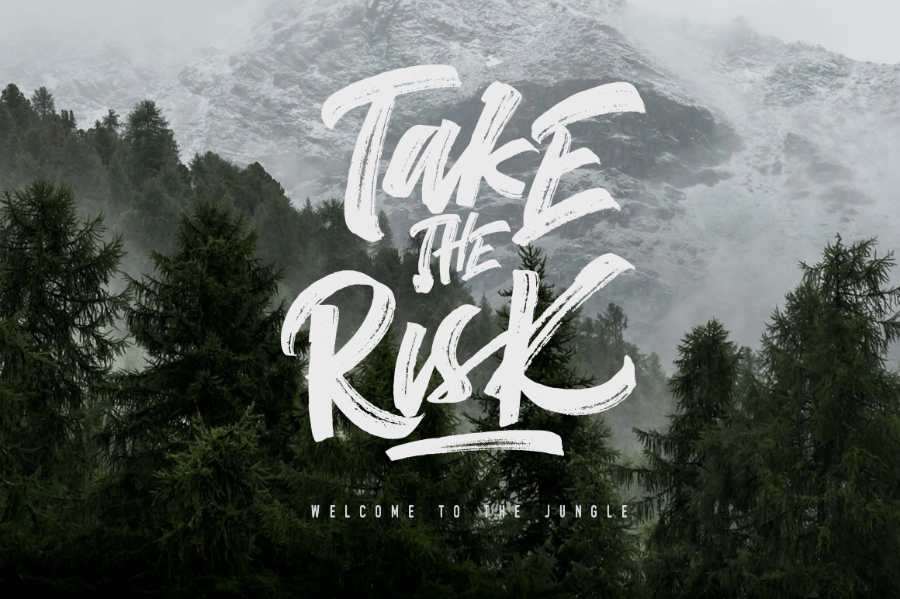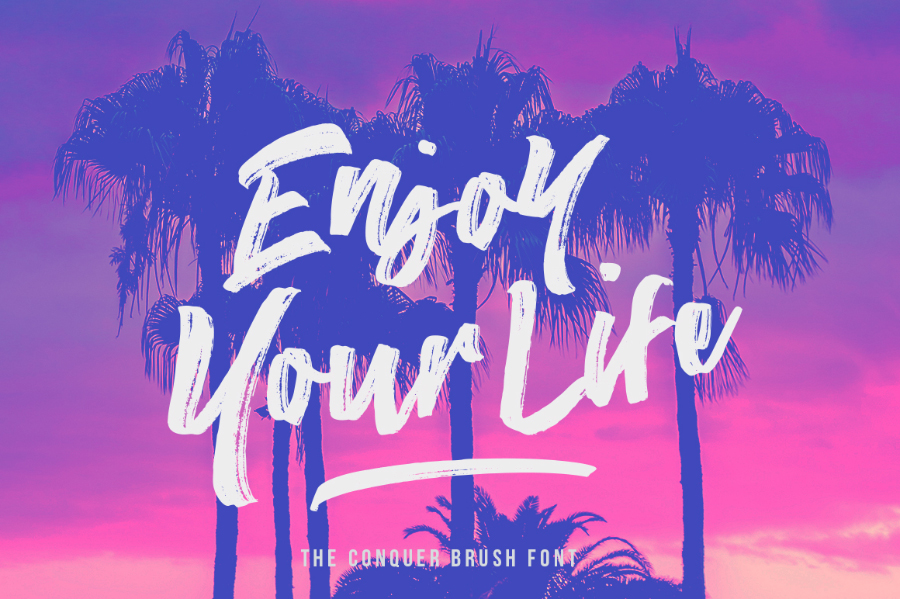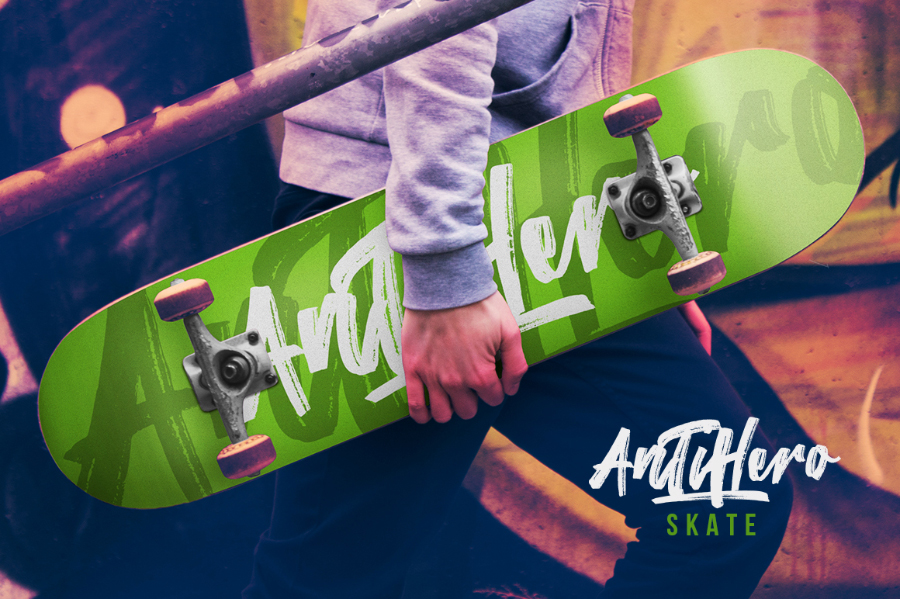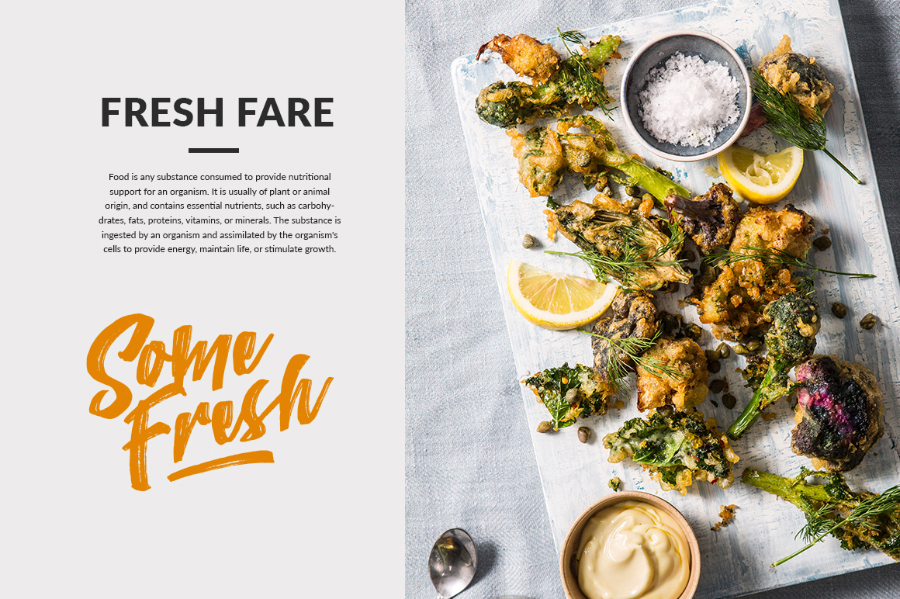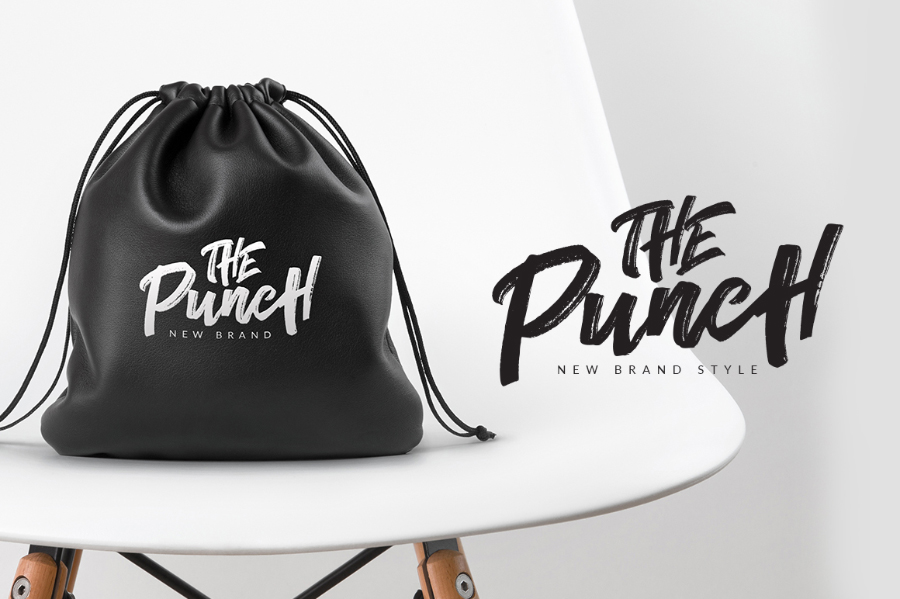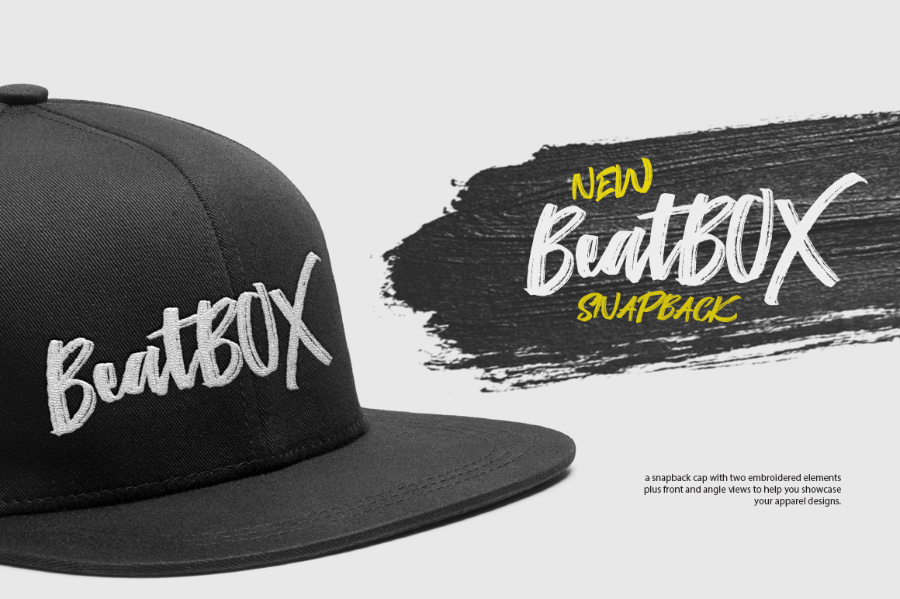
Conquer Brush Free Demo
Conquer Brush Free Demo is a trial version of Conquer Brush Typeface. An authentic dry brush typeface with imperfections, and a very bouncy baseline. Additionally, it has a complimentary marker font, and a super handy set of bonus Swash. Hence, it is ideal for logos, packaging, header, poster, merchandise, social media & greeting cards.